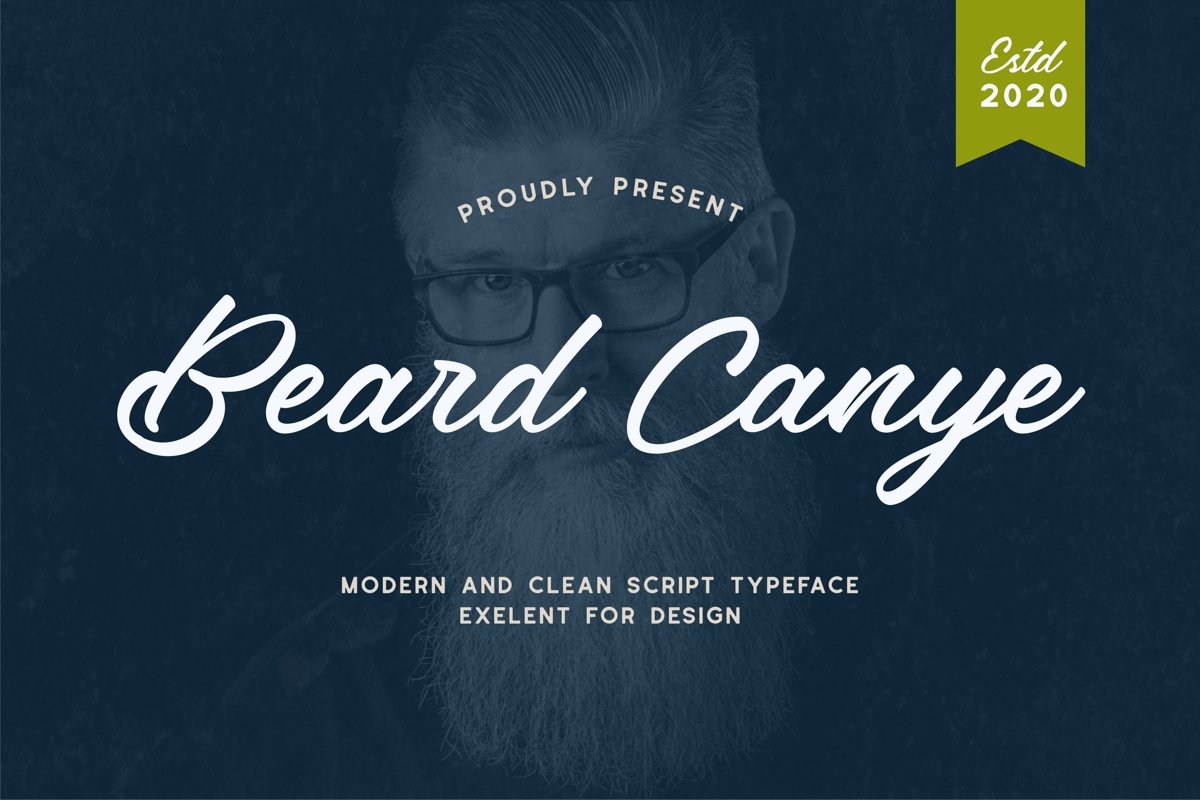
Beard canye - Modern And Clean Script Typeface
Beardcanye font perfect for delivering any message with confidence and style. This hand-lettered script inspired by baseball script font. Beardcanye font is perfect for styling logos, stationery, social media, branding, packaging, header, and so much more.
Font Features
• Uppercase & lowercase
• Numerals & symbol